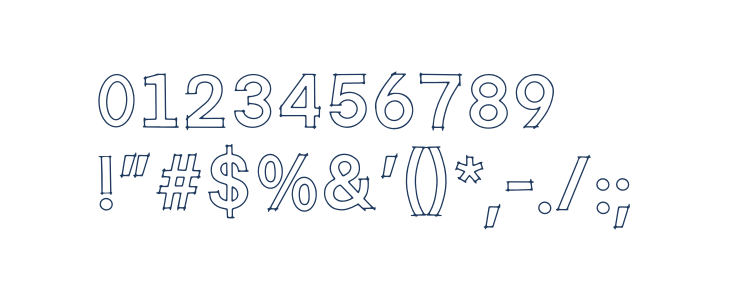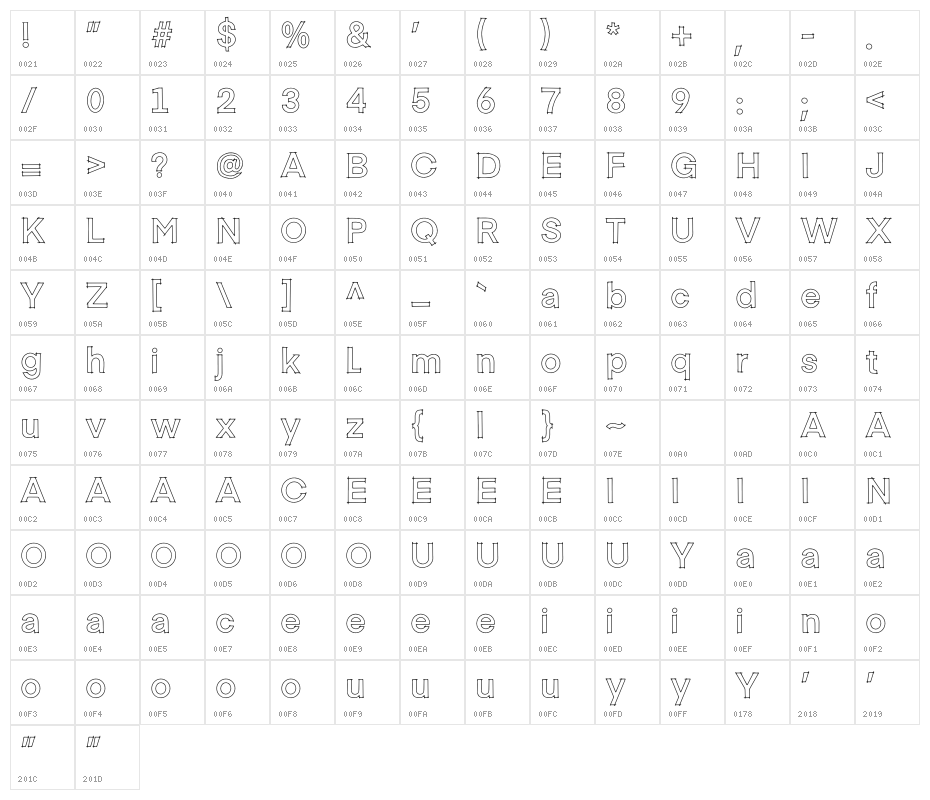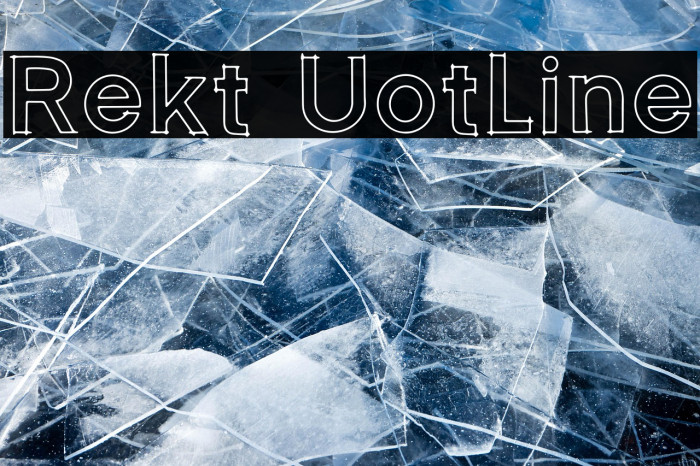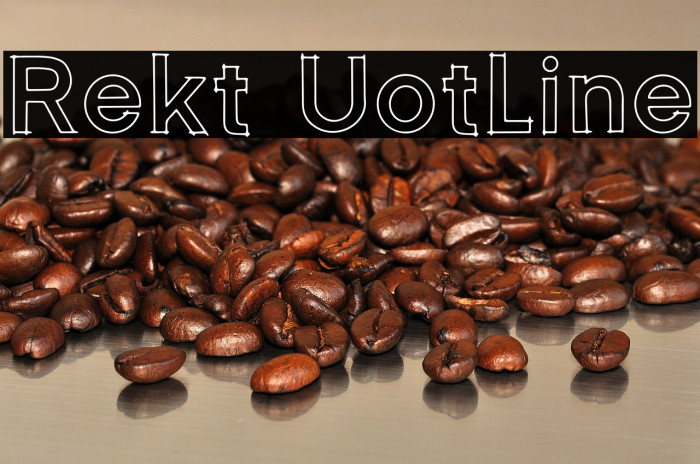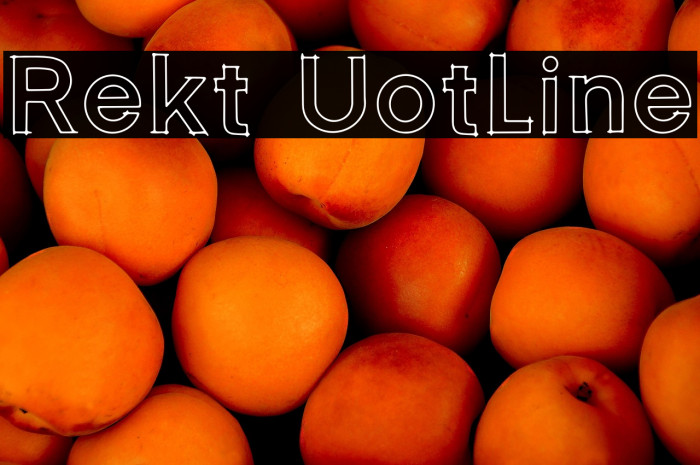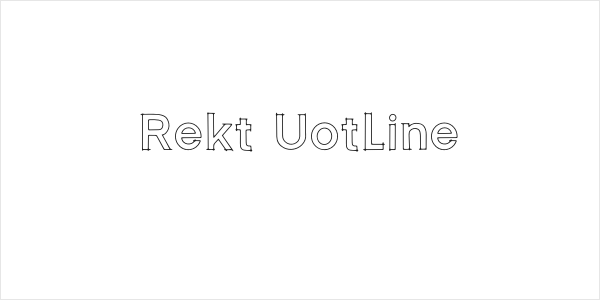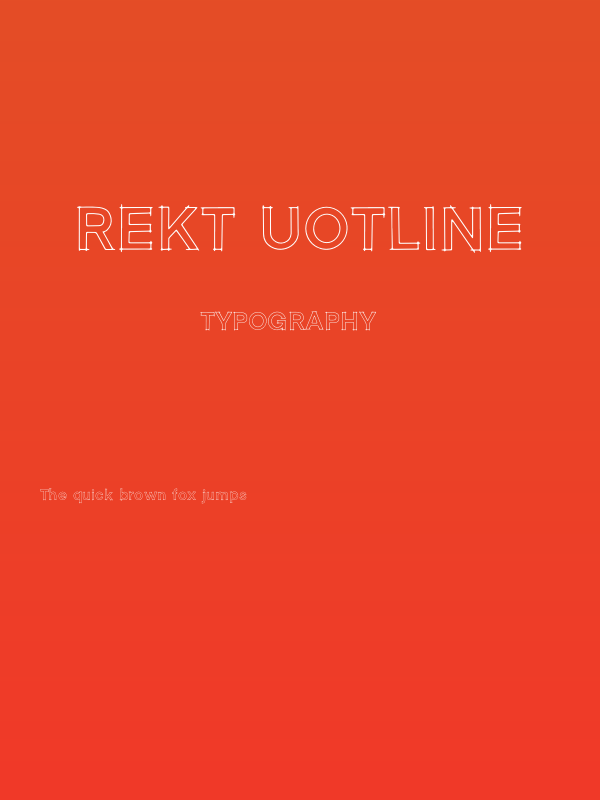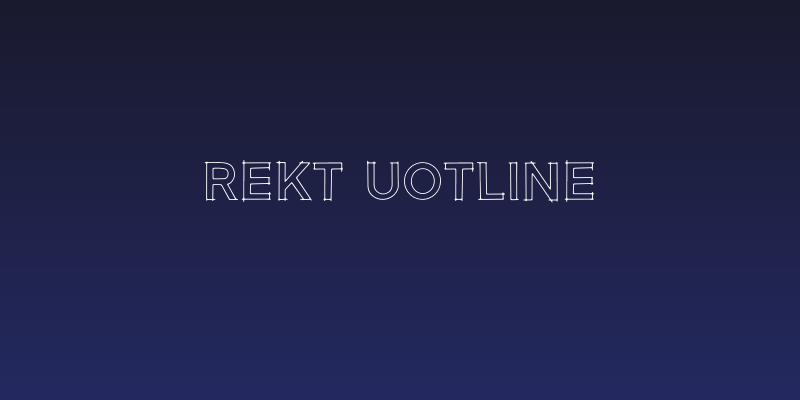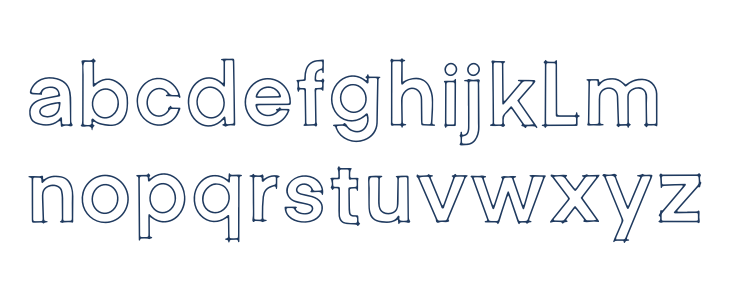
Rekt Uotline Font
Rekt Uotline Description
This font features a unique outline style that gives it a modern and edgy appearance. The characters are bold and well-defined, with a consistent stroke width that creates a strong visual impact. The uppercase and lowercase letters maintain a uniform height, contributing to a cohesive look. Numbers and special characters are designed with the same attention to detail, ensuring readability and versatility. The overall design is clean and contemporary, making it suitable for a variety of creative projects.